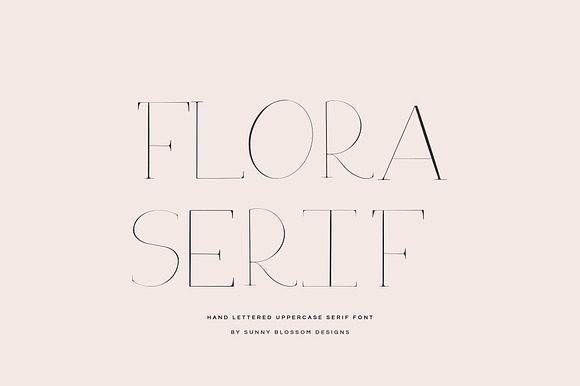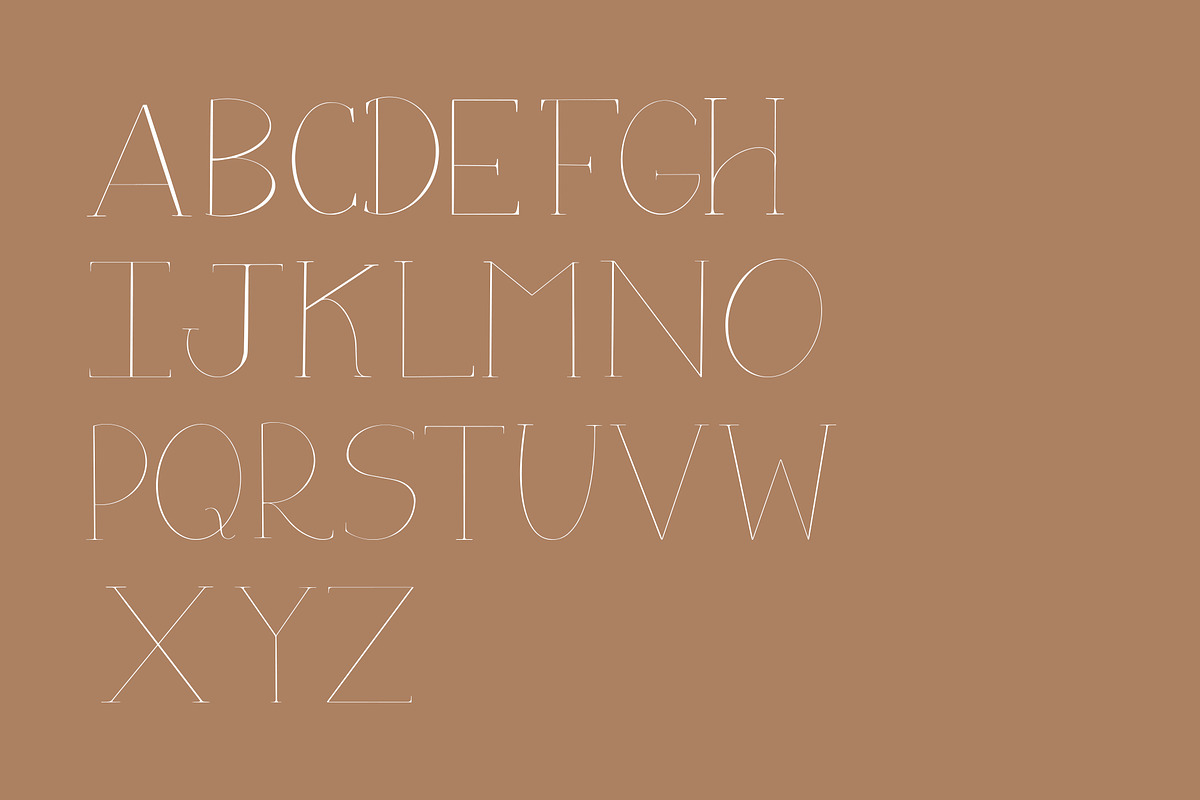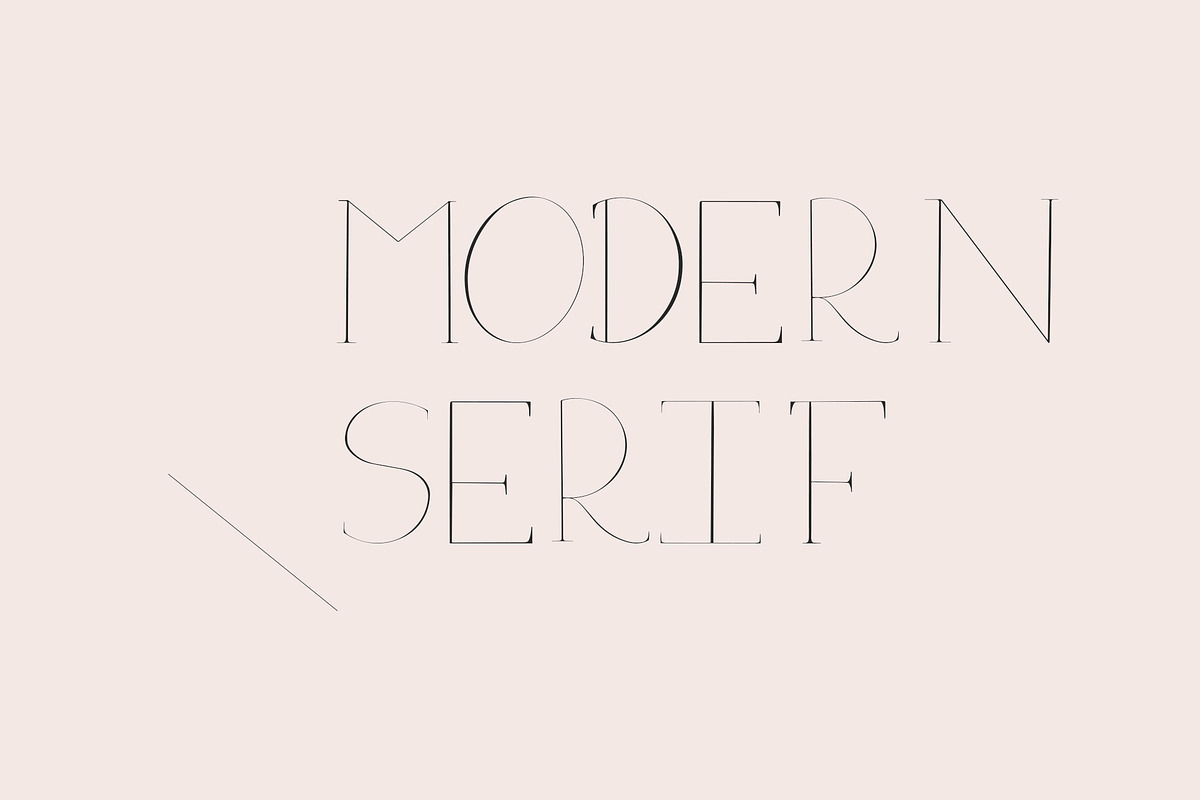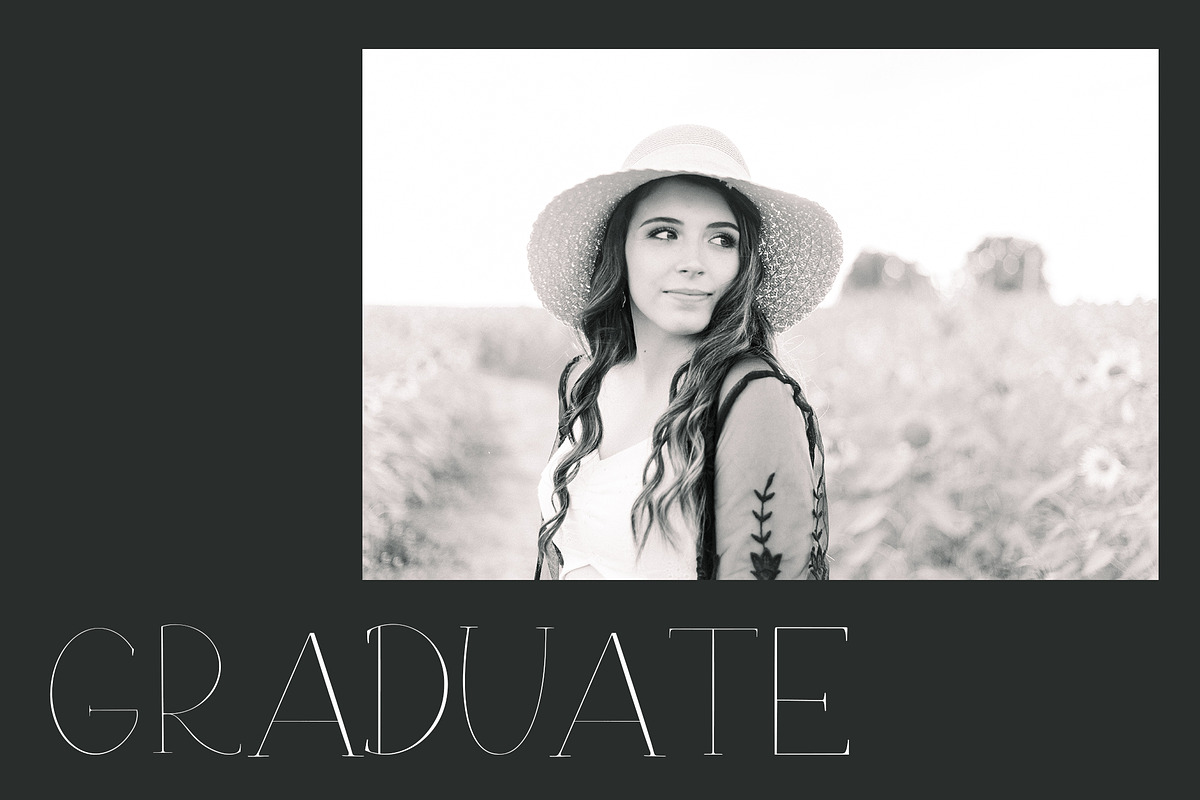
Flora Serif - Modern Serif Font
Looking for a fresh new, modern serif font? This font is beautiful for modern designs, templates, website design & branding.
Please note this font includes uppercase letters only